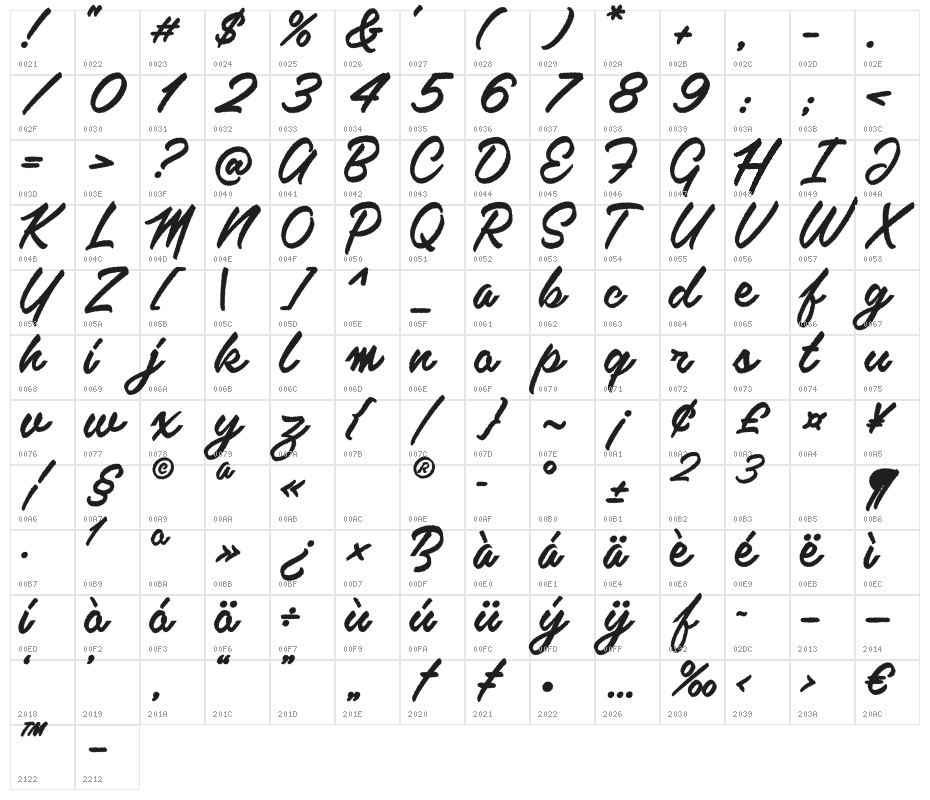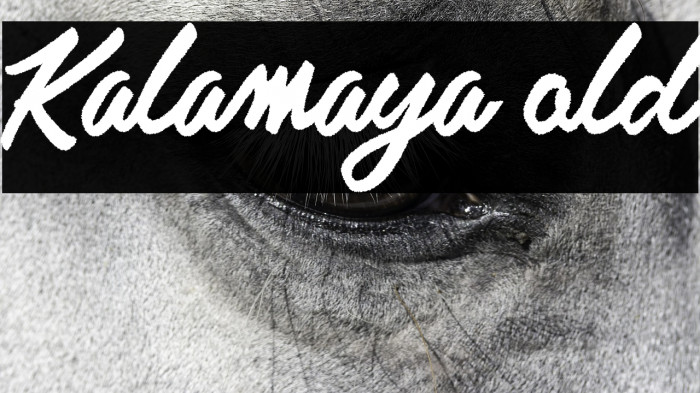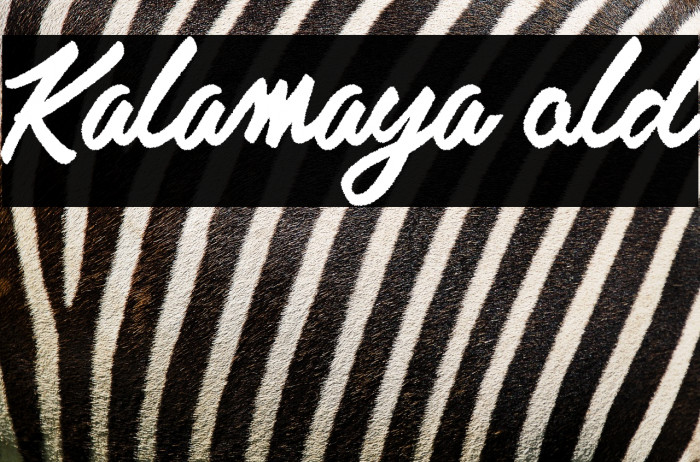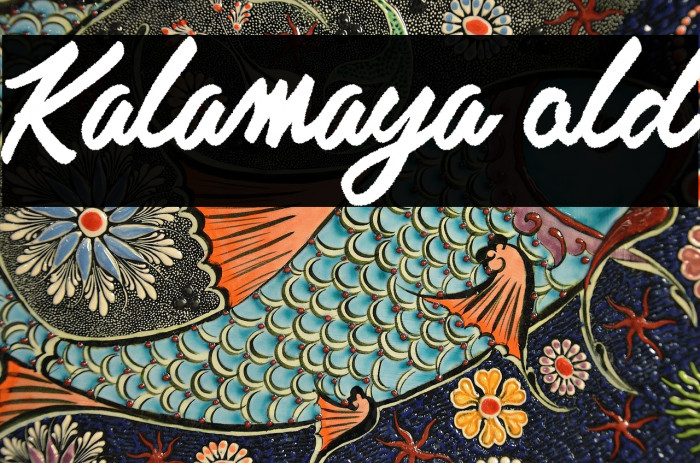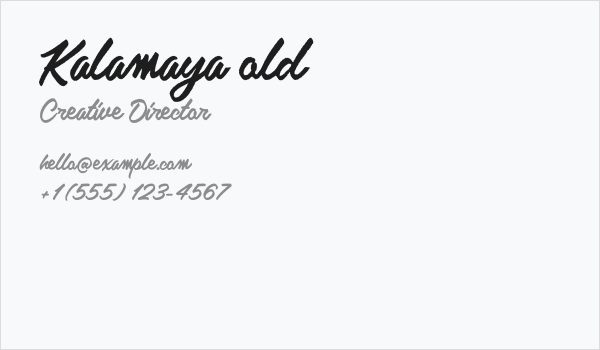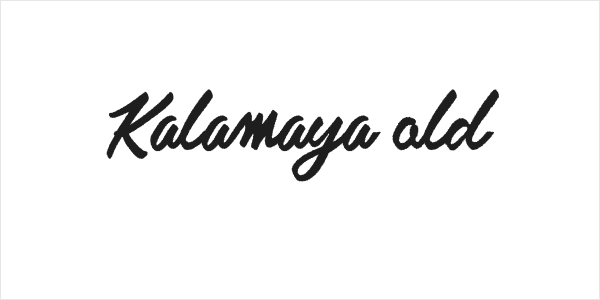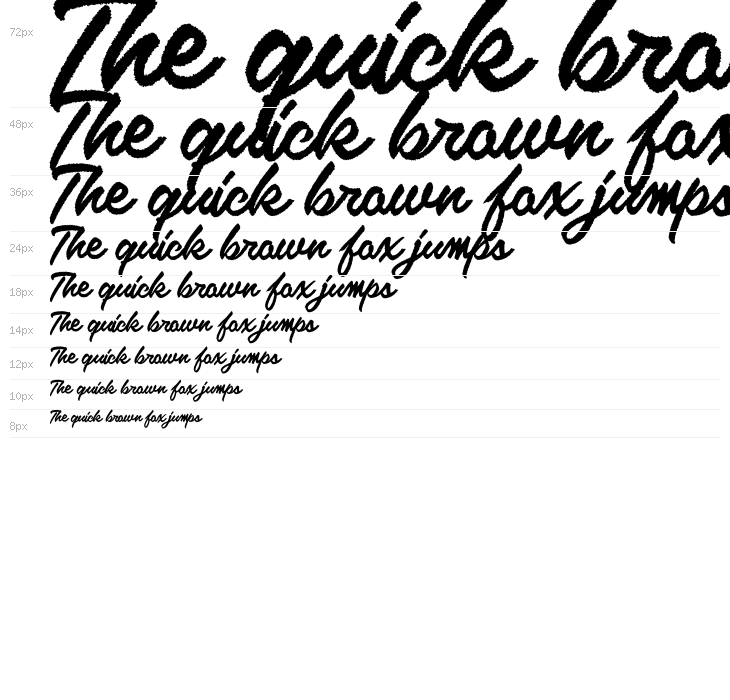
Kalamaya old Font
Kalamaya old Description
This font features a dynamic and flowing script style, characterized by its elegant, cursive letterforms. The strokes are smooth and connected, creating a sense of fluidity and movement. The uppercase letters are bold and prominent, while the lowercase letters maintain a consistent flow with slightly exaggerated loops and curves. The numerals and special characters are designed to complement the overall script style, ensuring readability and aesthetic appeal. This font exudes a sense of sophistication and creativity, making it suitable for a variety of design applications.
Use CaseLogos, Invitations, Branding
Proposed ProjectsIdeal for wedding invitations, greeting cards, branding, and logo design.